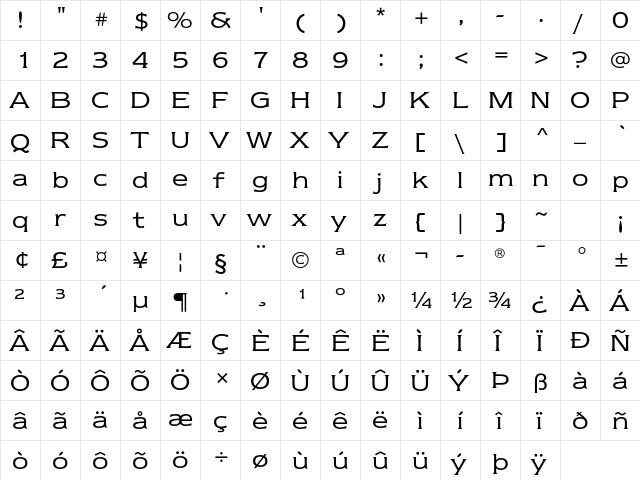
Newtext ITC Std Book Font Preview
Newtext ITC Std Book
Newtext ITC Std Book Font Details
| Designer | Ray Baker |
Design Context for Newtext ITC Std Typeface
Newtext ITC Std takes a measured approach to typography — its balanced proportions and neutral character make it a reliable workhorse for both digital and print work.